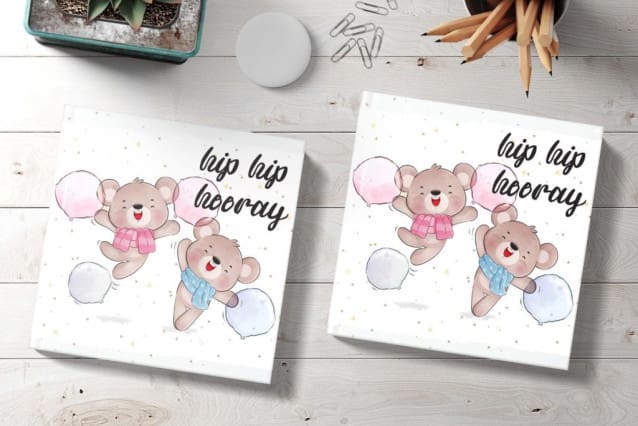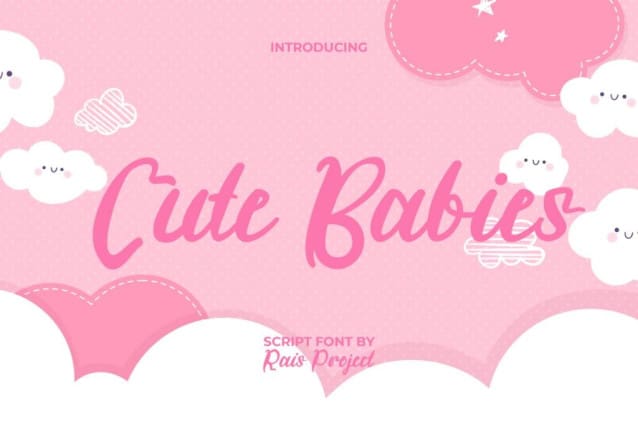
Cute Babies Font
Cute Babies Font is an adorable calligraphic script font. The fine lines at each end of the letters make it look special and still easy to read. This font has modern appearance making it suitable for many industries, such as beauty product, café, event or wedding organizer, fashion, florist, homeware, kids stuff, printing, publishing, salon and spa, and more!